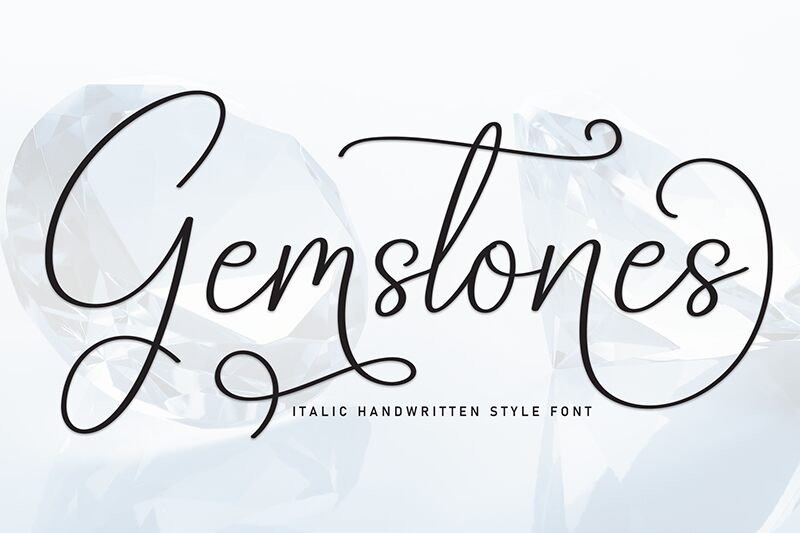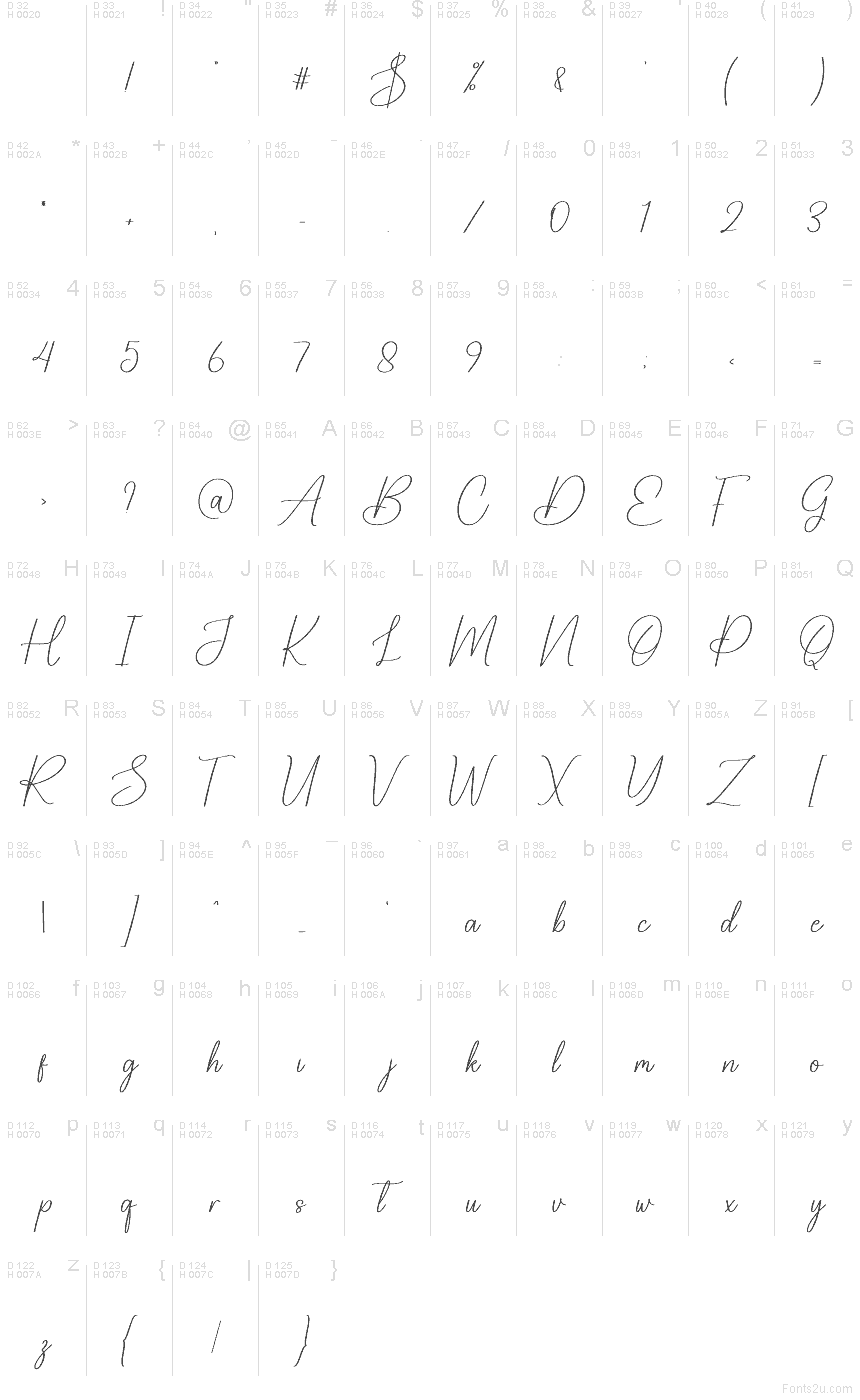
Gemstones
Gemstones font by Scratchones is a free handwritten script typeface with a light, inky touch that feels like it was written on smooth paper with a fine liner. The letters flow with long, looping curves and generous spacing, giving every word an easy, graceful sweep. It’s elegant without feeling stuffy, making it a natural fit for romantic, feminine, or boutique-focused visuals where you want handwriting that feels polished but still personal.
Using Gemstones, your invites and headlines pick up a soft, sparkling energy that suits wedding stationery, bridal shower sets, save-the-dates, beauty branding, logo wordmarks, and Instagram quote graphics. This free font shines when it’s given room to breathe—try it large on covers or headers and pair it with a clean sans serif in small text for a modern, balanced look.